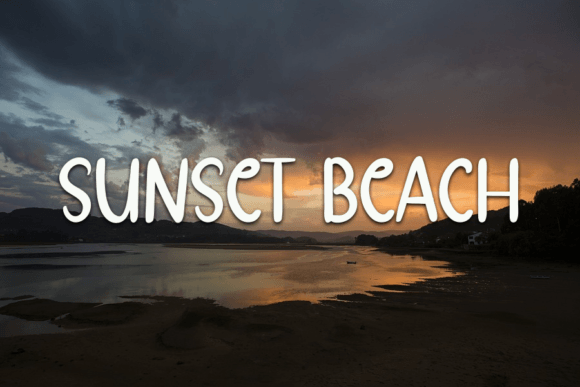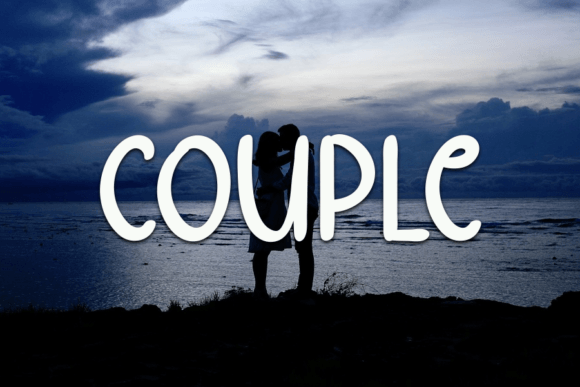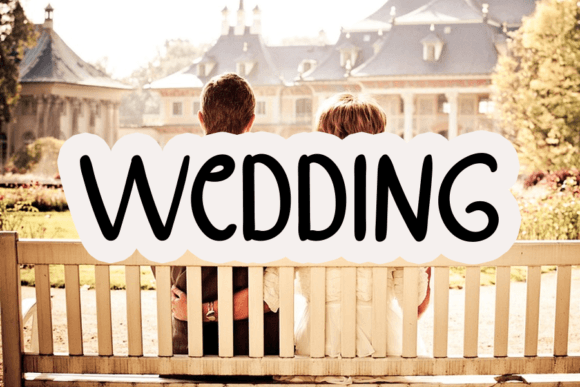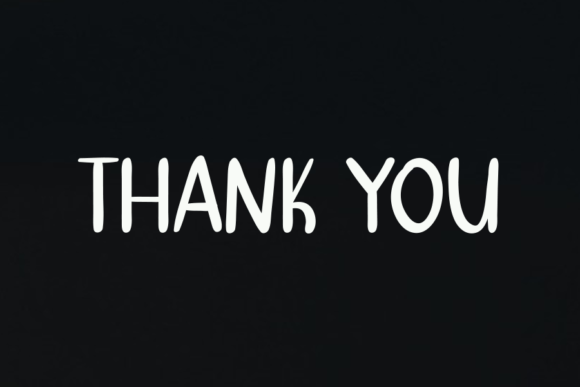
About Darling Font
The Darling Font Download is a fun and friendly handwritten typeface designed to bring warmth and creativity to your projects. With its smooth strokes and playful character, Darling adds a personal and approachable touch to any design. It’s versatile enough for professional branding yet casual enough for everyday creative use, making it an excellent addition to your font collection.
This handwritten font has been carefully crafted to balance legibility with personality. The bold yet inviting letterforms make it perfect for a wide range of creative and digital applications. Whether you’re working on a business project, crafting for personal enjoyment, or designing something unique, the Darling Font Download provides the perfect solution.
Features of Darling Font
The Darling Font Download comes with an array of design features that enhance its usability:
Friendly handwritten script with clean, smooth strokes
Uppercase and lowercase characters for flexible use
Complete punctuation, numbers, and multilingual support
PUA-encoded for easy access to special glyphs and alternates
These features ensure Darling isn’t just visually charming but also practical for both digital and print projects.
Best Uses for Darling Font
The Darling Font Download can be applied to a variety of creative projects. Some of the most popular uses include:
Craft Projects – Planners, stickers, and DIY artwork
Digital Design – Social media posts, blog graphics, and website banners
Presentations – Fun and engaging slides that grab attention
Greeting Cards – Personalized invitations, thank-you cards, and holiday messages
Branding – Playful logos and product packaging for small businesses
Print Media – Flyers, posters, and brochures that need a friendly touch
Darling is particularly well-suited for designs where you want to convey positivity, joy, and a welcoming personality.
Why Choose Darling Font?
Many handwritten fonts can either be too casual or too formal, limiting their versatility. The Darling Font Download strikes the right balance, offering a style that feels approachable yet polished. Its playful strokes make it stand out, while its readability ensures it works for both long and short text.
This font adds charm to personal projects and professionalism to branding materials. By adding Darling to your library, you ensure your work always carries a sense of warmth and friendliness.
If you’re searching for a handwritten font that combines fun, friendliness, and functionality, the Darling Font Download is the ideal choice. With its approachable style and versatile features, it can transform everyday projects into designs.